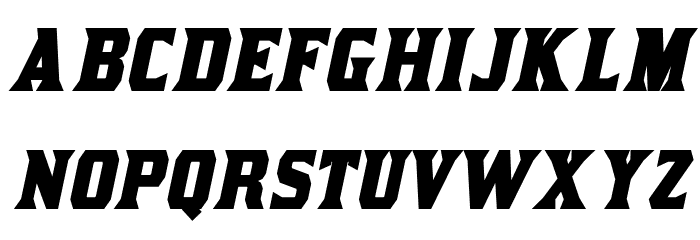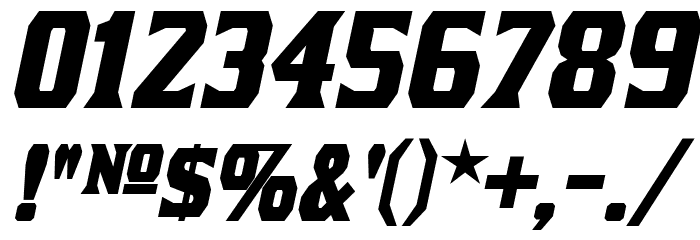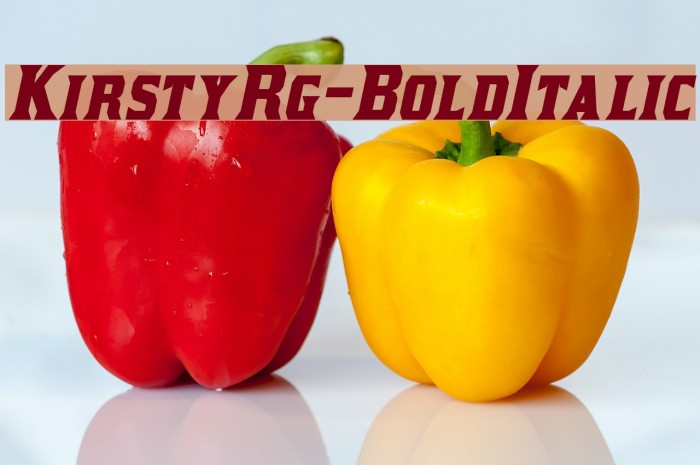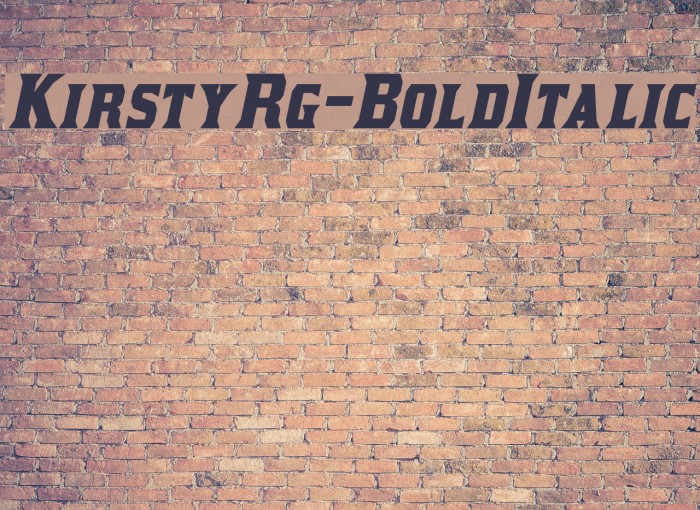
KirstyRg-BoldItalic Font
This font features a bold and italicized style with a strong, dynamic presence. The characters are sharply angled, giving them an aggressive and energetic look. The uppercase and lowercase letters maintain a consistent slant, enhancing the italic effect. The numbers are equally bold, with a uniform thickness that matches the letters. Special characters are designed with the same boldness and slant, ensuring a cohesive appearance across all glyphs. The font's overall design is striking and modern, making it suitable for projects that require a bold statement.
A bold, italicized font with sharp angles and a dynamic presence.
- Proposed Projects: Ideal for sports branding, action movie posters, or dynamic advertising campaigns.